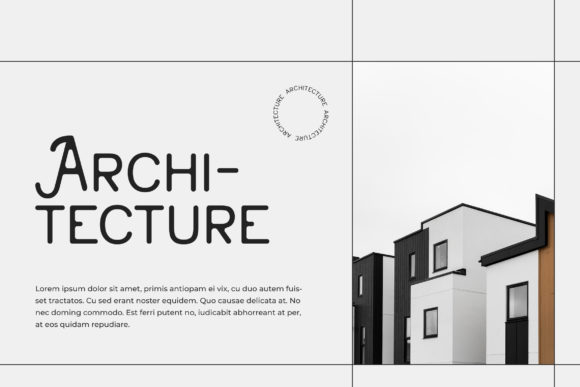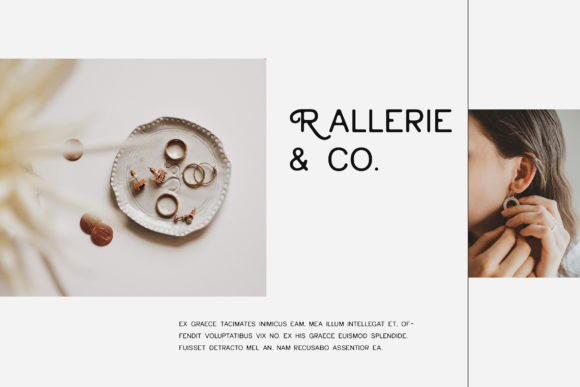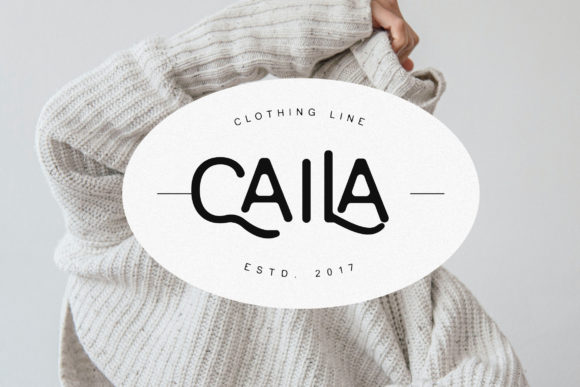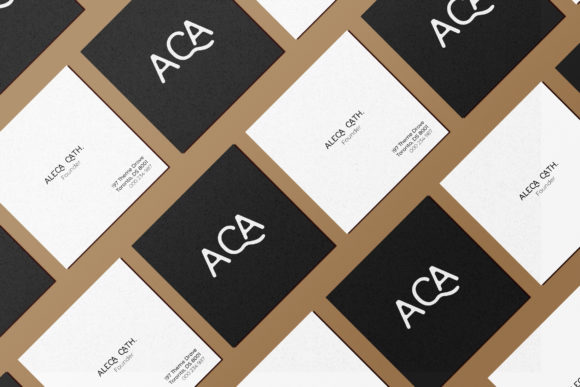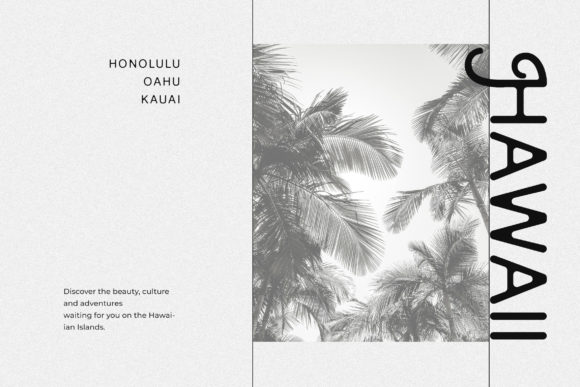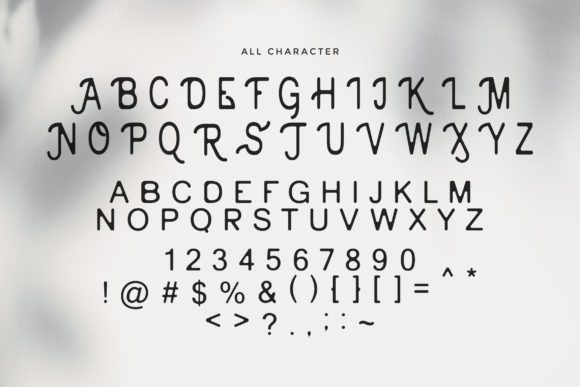
The Perfect Vintage Touch: Unveiling Cainamons Font
Have you ever stared at an old photograph, mesmerized by the faded yet elegant typography that brings the past to life? That’s exactly what happens when you incorporate the Cainamons Font into your designs. This vintage sans serif font has a timeless appeal that can instantly elevate your creative projects.
Whether you’re working on a fashion campaign, crafting a signature, or designing album covers, Cainamons Font is an excellent choice. Its modern and classy look makes it versatile and perfect for a wide range of applications. As a designer, you’ll appreciate the value Cainamons Font brings to your work – a unique and stylish element that sets your projects apart.
Cainamons Font Key Features
- Font Family: Cainamons Font is a sans-serif font family designed for modern typography.
- Size: The font family includes 5 weights (Light, Regular, Medium, Bold, and Black) to cater to various design needs.
- Language Support: The font family supports a wide range of languages, including Latin, Cyrillic, and Greek scripts, making it suitable for global design projects.
- Unique Characteristics: Cainamons Font features a unique blend of modern and minimalist design elements, with clean lines, geometric shapes, and subtle nuances that set it apart from other sans-serif fonts.
Cainamons Font Review
I recently had the chance to work with Cainamons Font, and I must say it’s an interesting addition to the font library. ✨ The first thing that caught my attention was its unique blend of modern and vintage elements. The font’s bold lines and geometric shapes give it a strong, statement-making quality that’s perfect for headlines and titles.
However, as with any font, there are some limitations to consider. ⚠️ The font’s legibility can be a bit of an issue, especially at smaller font sizes. Some characters, like ‘e’ and ‘a’, can be quite difficult to distinguish, which may lead to readability problems in certain contexts.
Here are some specific limitations to keep in mind:
- Lack of italic and bold styles
- Inconsistent spacing between letters
- Some characters may be difficult to read at small font sizes
Overall, Cainamons Font is a great choice for designers looking to add a touch of edginess to their projects. While it may not be perfect, its unique style and bold lines make it a great option for titles, headings, and other display typography.
Cainamons Font is ideal for:
- Creating eye-catching headings and titles.
- Adding a touch of elegance to your designs.
- Creating a unique and recognizable brand identity.
Alternatives to Cainamons Font
Great Vibes Font is a modern script font that works well for creating a friendly and approachable atmosphere. It’s ideal for use in headings and titles where a touch of elegance is required. Compared to Cainamons Font, Great Vibes Font has a more flowing and dynamic feel, making it suitable for creative and artistic projects.
Dancing Script Font is a beautiful and elegant script font that’s perfect for creating a sophisticated and luxurious look. It’s ideal for use in high-end branding, advertising, and packaging design. Compared to Cainamons Font, Dancing Script Font has a more refined and polished feel, making it suitable for projects that require a high level of sophistication.
Carolyna Pro Font is a modern and versatile script font that’s suitable for a wide range of design projects. It’s ideal for use in headings, titles, and body text where a touch of elegance is required. Compared to Cainamons Font, Carolyna Pro Font has a more streamlined and modern feel, making it suitable for projects that require a clean and minimalist look.